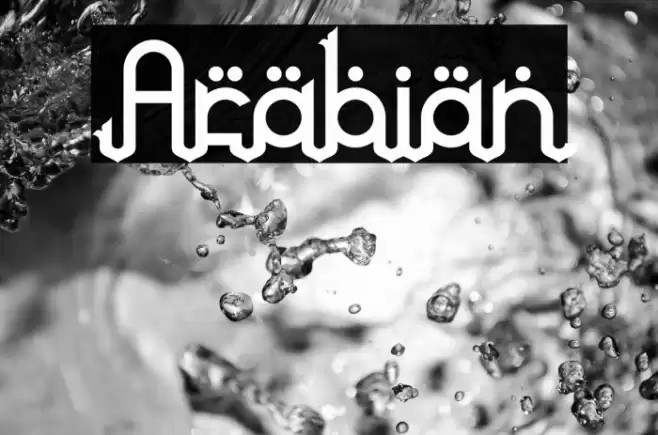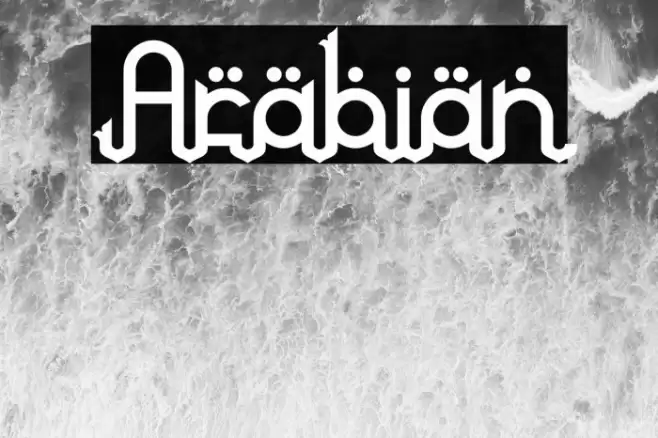
Arabian Font
Arabian Description
This font features a unique blend of traditional and modern elements, drawing inspiration from Arabic calligraphy. The characters are designed with intricate details, including decorative elements at the base, which resemble traditional Arabic script. The uppercase and lowercase letters maintain a consistent style, with bold strokes and a strong presence. The numerals and special characters are crafted to match the overall aesthetic, ensuring a cohesive look. This font is ideal for projects that require a touch of cultural elegance and sophistication.
A decorative font inspired by Arabic calligraphy with bold strokes and intricate details from Regular fonts.
- Proposed Projects: Ideal for cultural event posters, branding for Middle Eastern products, or artistic projects requiring a traditional yet modern touch.